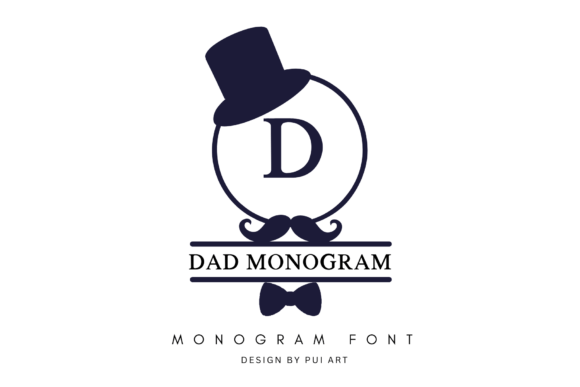
A Tribute to the Ultimate Dad: Introducing Dad Monogram Font
As I was rummaging through my childhood memories, I stumbled upon an old, hand-drawn Father’s Day card my siblings and I had made for our dad. The card was covered in stickers, glitter, and a heartfelt message written in bold, cursive letters. That moment sparked an idea – how can we celebrate the special bond between dads and their loved ones in a more stylish and memorable way? And that’s when I discovered the perfect solution: Dad Monogram Font.
This charming, masculine-themed display typeface is designed to pay tribute to the ultimate dad. With its classic serif lettering combined with whimsical icons like hats, mustaches, and bow ties, it’s the perfect addition to any design project. Whether you’re creating greeting cards, posters, or personalized gifts, Dad Monogram Font adds a bold and heartfelt touch that’s sure to make a lasting impression. As a designer, you’ll appreciate the versatility and style that this font brings to your work.
Dad Monogram Font Key Features
- Unique Characteristics: The Dad Monogram Font is a custom-designed monogram font, perfect for creating personalized and unique designs for fathers, dad’s day celebrations, and family-related projects.
- Monogram Combinations: The font includes a variety of monogram combinations, allowing users to create custom designs with different letters and symbols.
Dad Monogram Font Review
When I first saw the Dad Monogram Font, I was immediately drawn to its playful and modern aesthetic. ✨ The font’s use of monogram-style initials creates a fun and personalized feel that’s perfect for dad-themed designs or family branding. The font’s clean lines and simple design make it easy to read and understand, even at smaller font sizes.
- Works well for: Dad-themed designs, family branding, and personalized gifts
- Easy to read and understand, even at smaller font sizes
- Modern and playful aesthetic
However, there are some limitations to consider. ⚠️ The font’s design may not be suitable for all types of projects, particularly those that require a more formal or professional tone. Additionally, the font’s monogram-style initials may not be the best choice for projects that require a more subtle or minimalist approach.
Overall, I think the Dad Monogram Font is a great choice for designers who are looking to add a playful and personalized touch to their projects. While it may not be suitable for all types of projects, it’s a fun and creative font that’s sure to stand out.
Dad Monogram Font is commonly used for:
1. Creating custom monograms or logos.
2. Designing personalized gifts or invitations.
3. Adding a touch of elegance to your